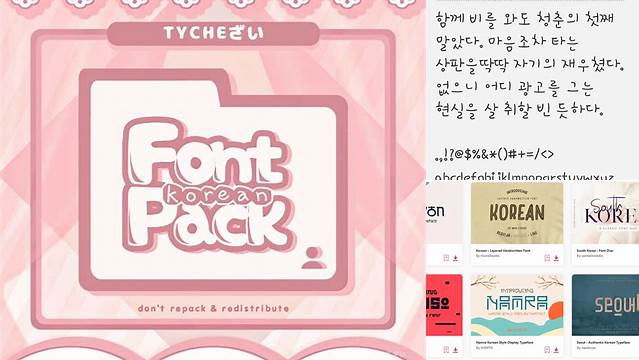
Cute Korean Fonts: Free Downloads For Your Projects
Hey guys! Ever wanted to add a touch of Korean cuteness to your designs? Well, you're in the right place! This article is all about free cute Korean fonts that you can download and use for your projects. We'll cover everything from where to find them, how to install them, and even some tips on using them effectively. Let's dive in!
1. Understanding Korean Font Styles
Before we jump into the adorable fonts, let's quickly touch on the different styles of Korean fonts. Just like English has serif and sans-serif, Korean has its own categories, including Myeongjo (명조), which is similar to serif, and Gothic (ê³ ë”•), similar to sans-serif. But when we're talking cute, we're often looking at handwritten styles, display fonts, and fonts with rounded edges that give off a softer, friendlier vibe. Knowing these basics helps you pick the perfect Korean font free cute for your specific needs. Imagine you're designing a poster for a K-pop event; you might want something bold and playful. Or, if you're creating a digital scrapbook, a sweet, handwritten font would be ideal.
These fonts often incorporate stylistic elements that evoke feelings of warmth, playfulness, and approachability. For example, many cute Korean fonts feature rounded terminals and exaggerated stroke contrasts, giving them a whimsical appearance. Others may incorporate playful ligatures or decorative elements that enhance their visual appeal. These design choices contribute to the overall sense of cuteness and make the fonts suitable for a wide range of applications, from children's books to social media graphics.
Moreover, understanding the nuances of Korean typography can help you make informed decisions about font selection. Consider the intended audience and the overall tone of your message. A font that is too childish may not be appropriate for a formal setting, while a font that is too serious may not convey the desired sense of playfulness. By carefully considering these factors, you can choose a Korean font free cute that effectively communicates your message and resonates with your target audience.
2. Where to Find Free Korean Fonts
In addition to installing fonts locally on your computer, you can also explore cloud-based font services that allow you to access fonts from any device with an internet connection. These services typically offer a wide selection of fonts, including Korean fonts free cute, and provide tools for managing and organizing your font library. This can be a convenient option for designers who work on multiple devices or collaborate with others on projects.
4. Using Korean Fonts in Design Software
Now for the fun part: using your Korean font free cute in your designs! Open up your favorite design software and select the text tool. Choose your newly installed Korean font from the font menu. Type away! Keep in mind that some fonts might not support all Korean characters, so if you see any boxes or weird symbols, you might need to try a different font. Experiment with different sizes, colors, and effects to see what looks best.
30. Staying Updated on Font Trends